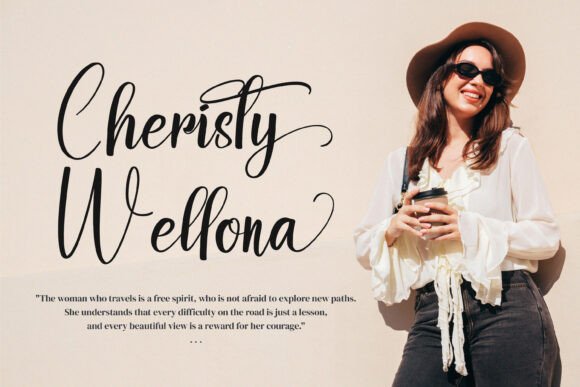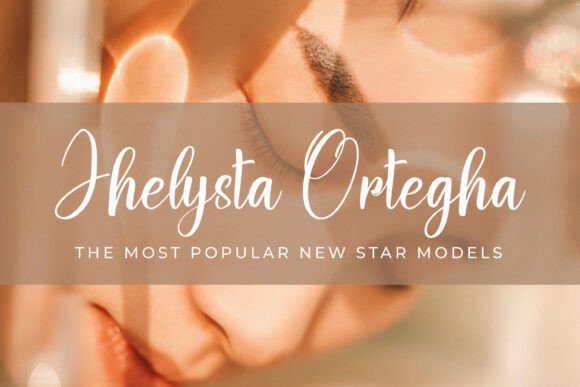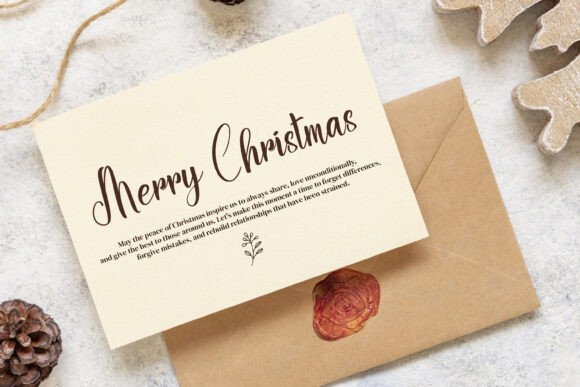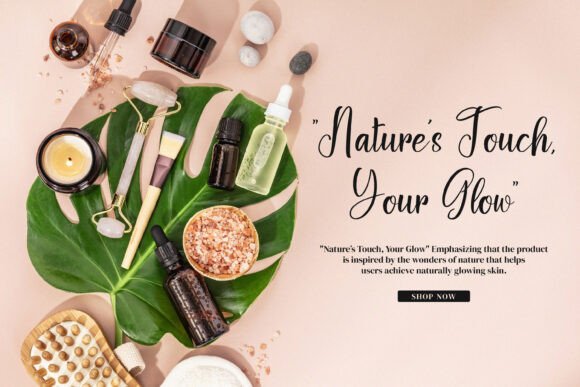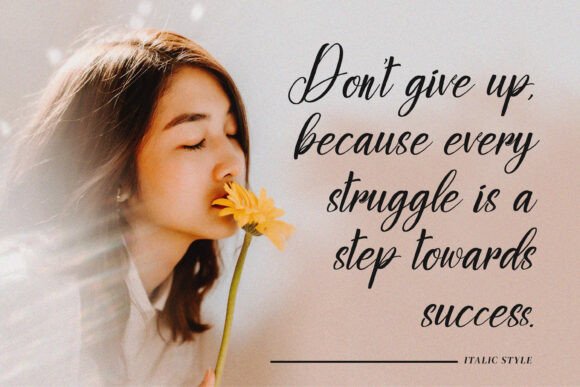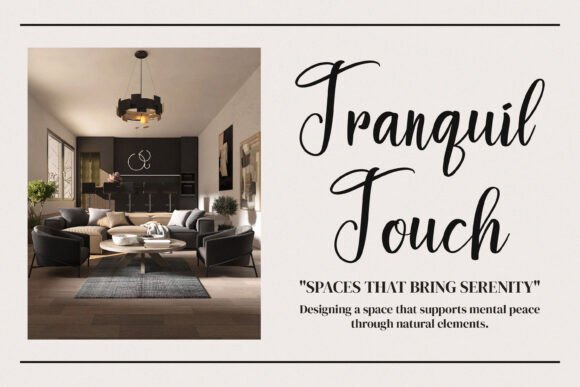
The Perfect Script for Your Next Creative Project
As a designer, there’s nothing quite like the thrill of bringing a new idea to life. You’ve got a vision, a concept, and a blank canvas waiting for your creative touch. But sometimes, it’s the smallest details that make all the difference. That’s where fonts like Fhionetta come in – adding a personal, stylish touch to your designs that sets them apart.
Fhionetta Font is a beautiful, elegant script font that’s designed to add a touch of sophistication to any project. With its smooth, flowing letters, it’s perfect for invitations, logos, and other creative projects where a handwritten feel is just what’s needed. And for designers, Fhionetta Font is a valuable tool – offering a unique, versatile font that can be used in a wide range of applications.
Fhionetta Font Key Features
- Font Family: Fhionetta Font
- Font Style: Script, Calligraphy
- Unique Characteristics: Hand-drawn, elegant, and cursive script font with a touch of vintage charm, ideal for invitations, wedding stationery, and other special occasions
Fhionetta Font Review
Overall, I’m quite impressed with the Fhionetta Font. ✨ It has a beautiful, elegant feel that would be perfect for high-end fashion brands or luxury products. The font is highly customizable, with a wide range of weights and styles to choose from. This makes it easy to use across different mediums, from print to digital.
The Fhionetta Font also has a great balance of modern and classic elements, which gives it a timeless feel. The designer has done a great job of creating a font that is both stylish and versatile.
- Beautiful, elegant feel ✨
- Highly customizable
- Wide range of weights and styles
- Great balance of modern and classic elements
- Can be difficult to read at small font sizes ⚠️
- May not be suitable for informal or playful branding
Overall, I would highly recommend the Fhionetta Font to anyone looking for a high-end, luxurious font for their brand. With its beautiful design and high level of customization, it’s a great choice for a wide range of applications.
The Fhionetta Font is ideal for creative and artistic projects, such as:
- Branding and logo design.
- Illustrative typography and quotes.